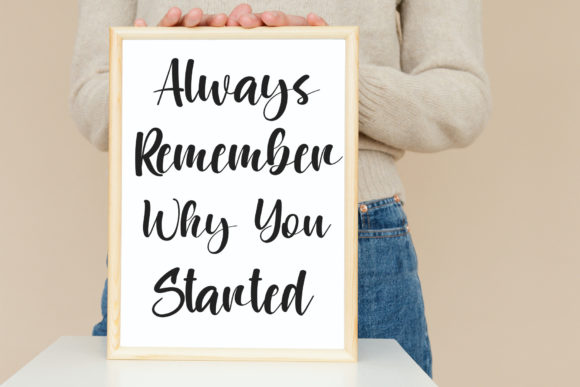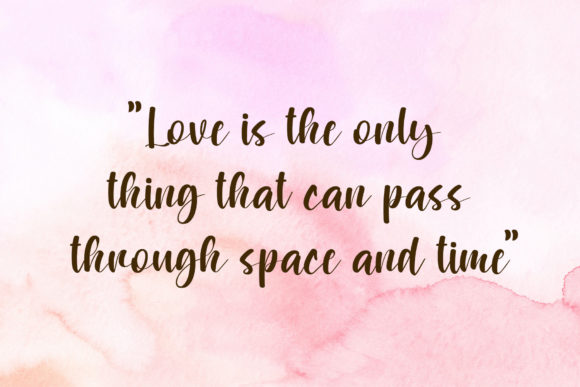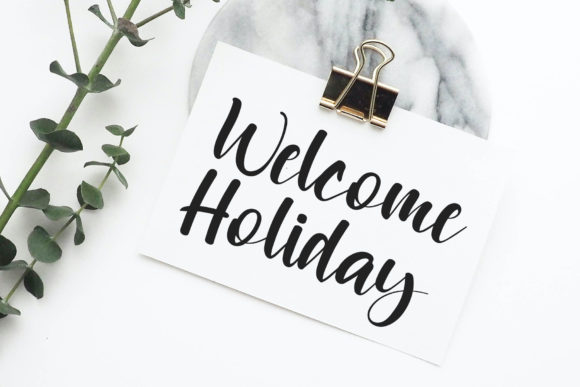
Introduction to Entire Font
Have you ever been working on a creative project, pouring your heart and soul into it, only to feel like something’s missing? You know, that elusive spark that elevates your design from good to great? For many designers, finding the perfect font can be the key to unlocking that magic. That’s where the Entire Font comes in – a fun and friendly handwritten font that’s sure to turn any design idea into a true standout.
| 👤 Author | Bintang Studio |
With its unique charm and high quality design, the Entire Font is a valuable resource for designers looking to add a personal touch to their projects. Whether you’re working on a branding project, a social media campaign, or simply a personal creative endeavor, this font is sure to inspire and delight. And the best part? It’s available for a free download, complete with a transparent background, making it easy to integrate into any design.
- Unique characteristics include intricate details and ornate designs, making it perfect for decorative and artistic projects.
Honest Review: Entire Font
As a designer, I’m always on the lookout for high-quality resources to elevate my creative projects. I recently had the chance to explore Entire Font, and I’m here to share my honest thoughts.
- Entire Font offers a vast library of unique and stylish fonts, perfect for designers looking to add a touch of sophistication to their work.
- Many of the fonts feature transparent backgrounds, allowing for seamless integration into design projects.
Overall, Entire Font is a solid design resource that delivers high-quality fonts for free. While it may not offer the most extensive selection, it’s a great starting point for designers looking to add some flair to their creative projects.
Entire Font is a high-quality design resource ideal for creative projects. This versatile font can be used in a variety of contexts, from logos to marketing materials.
Tips for Getting the Most Out of Entire Font
Use Entire Font with a transparent background to create a clean and modern design. Experiment with different font sizes and styles to add visual interest.
Entire Font is ideal for:
– Logos and branding materials
– Marketing materials, such as brochures and flyers
– Digital design projects, including websites and social media graphics